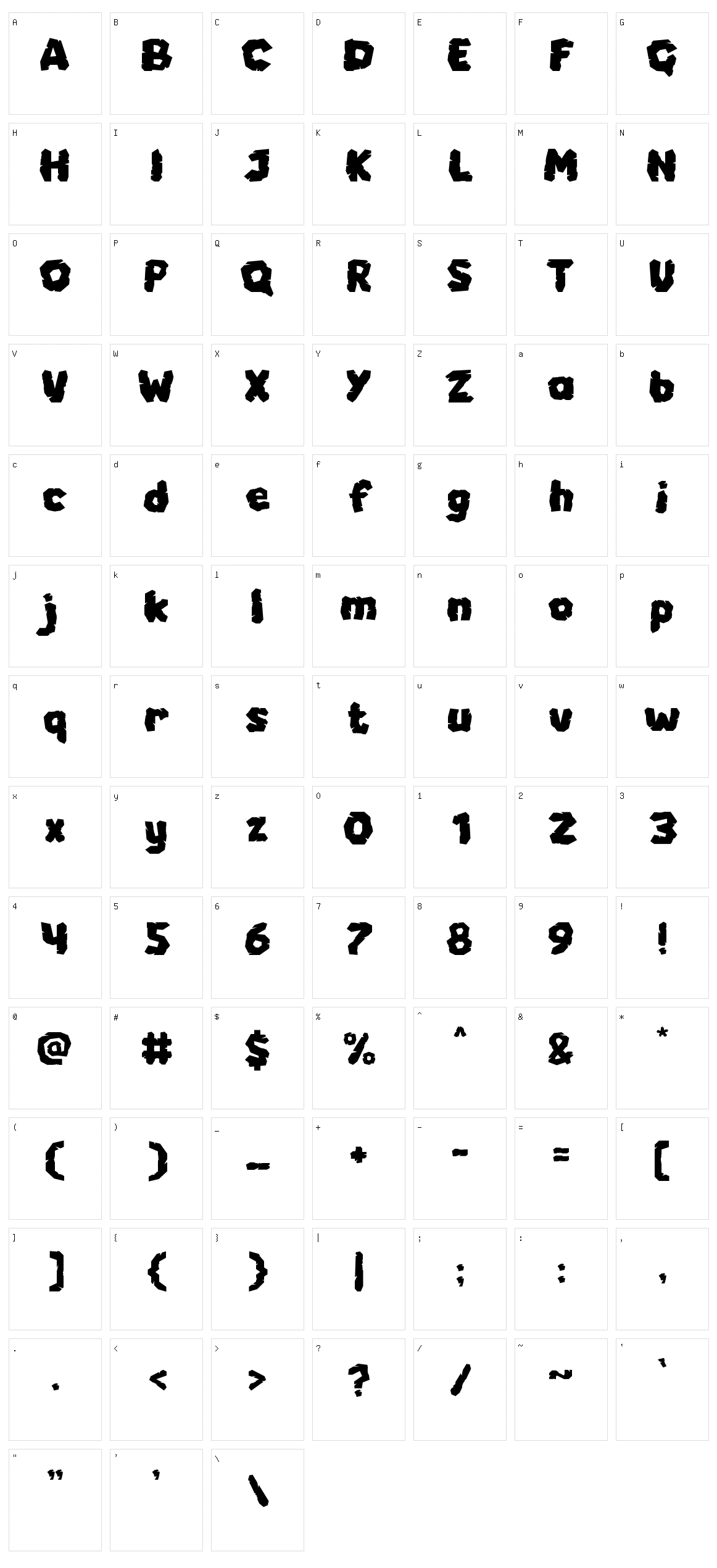
The free font Cave Stone is carefully designed by Pinisiart, showcasing a thoughtful balance of creativity and usability and falls under the Cartoon font style. When you download the ZIP file, it contains only 17.17 KB of font files, making it lightweight and quick to download. Please review the license details below to understand permitted usage and distribution rights. If license information is not available, we recommend using this font for personal projects only or contacting the author directly for commercial usage permissions.